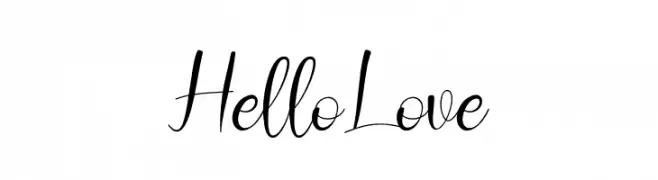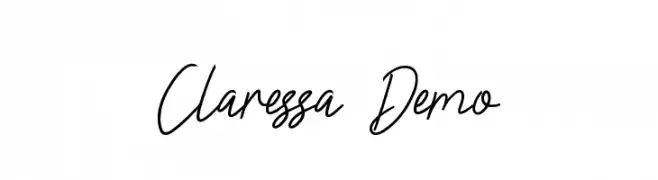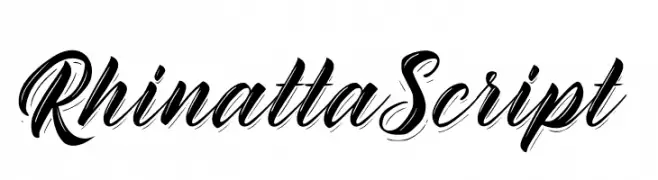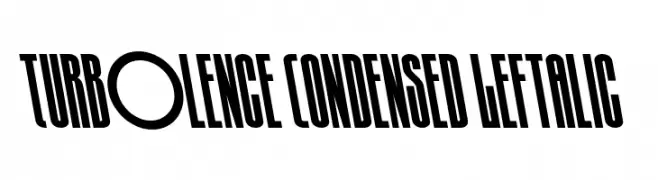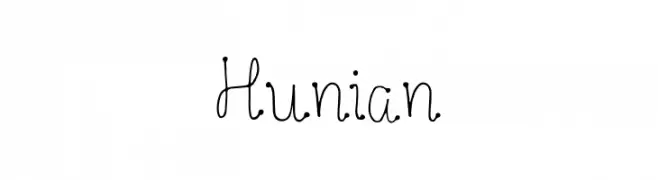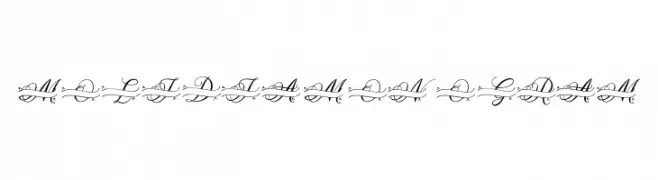
A whimsical, hand-drawn font with tall, narrow letters and a playful style.
A tall, narrow serif font with pronounced serifs and elegant styling.
A graceful and elegant script font with flowing cursive letterforms.
A fluid, elegant handwritten font with thin, delicate strokes.
A cursive, handwritten-style font with fluid, interconnected letters.
A dynamic handwritten font with fluid, cursive strokes and a playful appearance.
An elegant script font with fluid, cursive strokes and bold flourishes.
A bold, condensed, and left-italic font with high contrast and tight spacing.
A whimsical handwritten font with thin strokes and rounded edges.
An elegant script font with intricate swirls and flourishes, perfect for decorative projects.